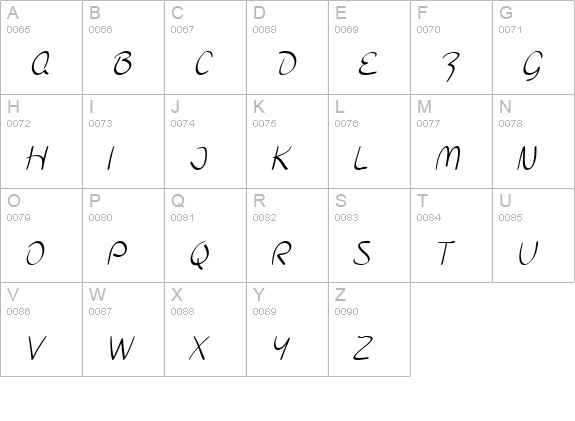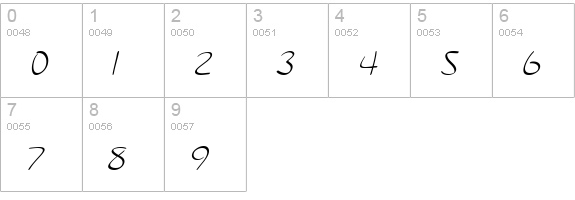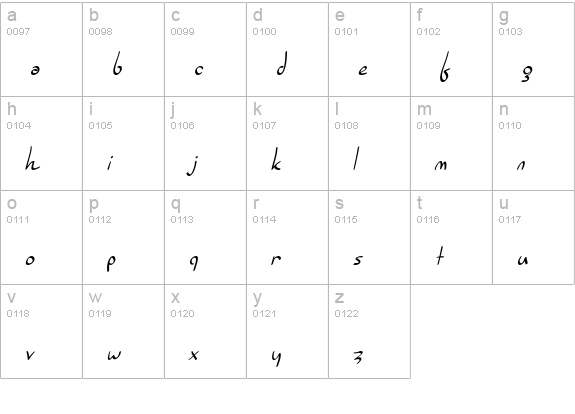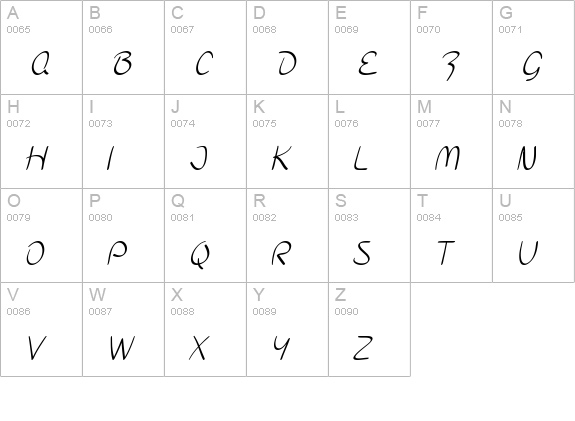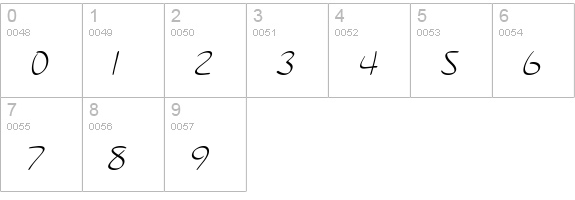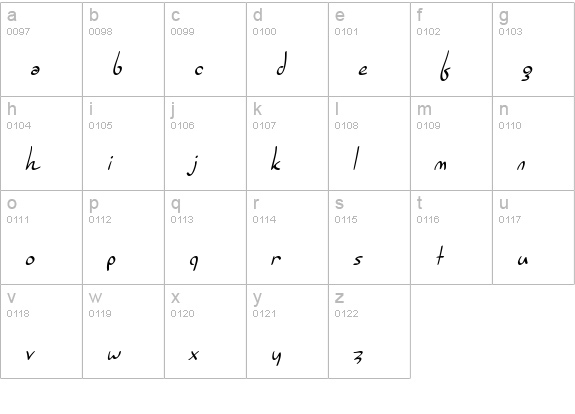
SF Burlington Script Font Details
SF Burlington Script is a stunningly elegant typeface that captures the essence of handwritten calligraphy with its graceful curves and flowing strokes. This font exudes a sense of sophistication and charm, making it perfect for a variety of design projects. With its intricate details and intricate letterforms, SF Burlington Script adds a touch of elegance to any design. Whether you're creating wedding invitations, branding materials, or social media graphics, this font will elevate your designs to new heights. What makes SF Burlington Script even more appealing is that it is freely available to download at FontsMarket.com. Yes, you read that right - this beautiful font is completely free! Now you can add a touch of class to your designs without breaking the bank. The versatility of SF Burlington Script is another reason to love it. It works well in both large and small sizes, ensuring readability and legibility in any context. Its smooth and flowing lines create a sense of movement, giving your designs a dynamic and lively feel. Whether you're a professional designer or a casual hobbyist, SF Burlington Script is a must-have font in your collection. Its timeless elegance and free availability make it a valuable asset that will enhance your creative projects. Don't miss out on the opportunity to download this font and take your designs to the next level. Visit FontsMarket.com today and let SF Burlington Script inspire your creativity.